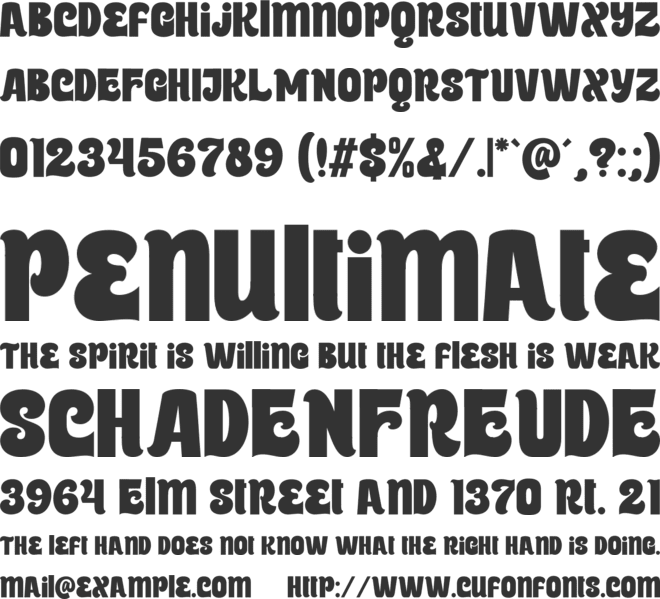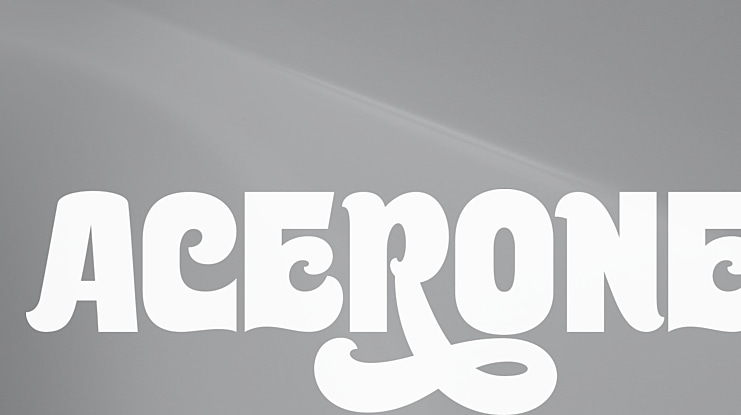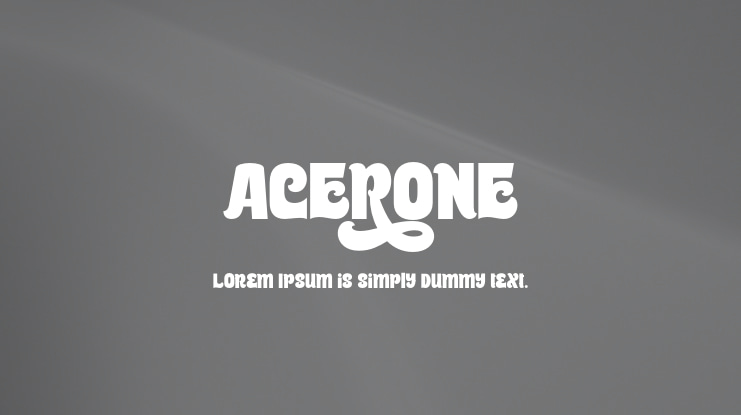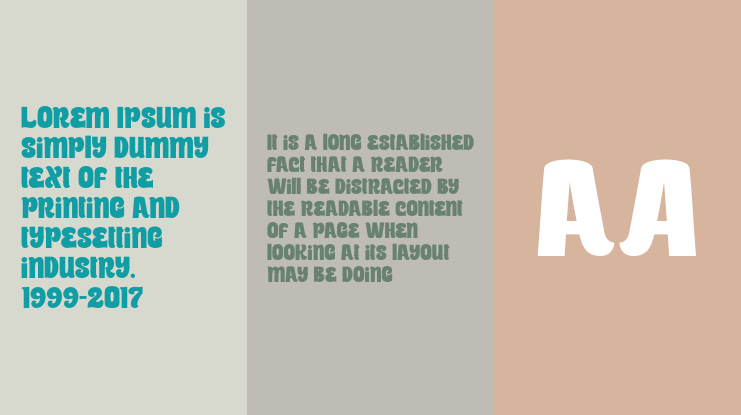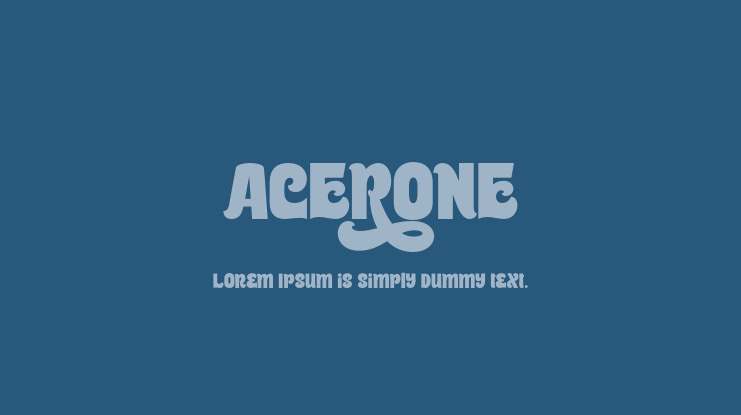
Acerone Font
Acerone is a sans-serif display font that showcases distinctive letter shapes. It exudes a playful and joyful vibe, making it an ideal choice for various creative projects. Whether you need a captivating logo, elegant invitations, stylish magazine layouts, eye-catching packaging, or trendy fashion designs, Acerone has got you covered. With its versatility, it can also enhance greeting cards, wedding stationery, novels, product labels, and more. Let Acerone elevate your designs with its unique charm.